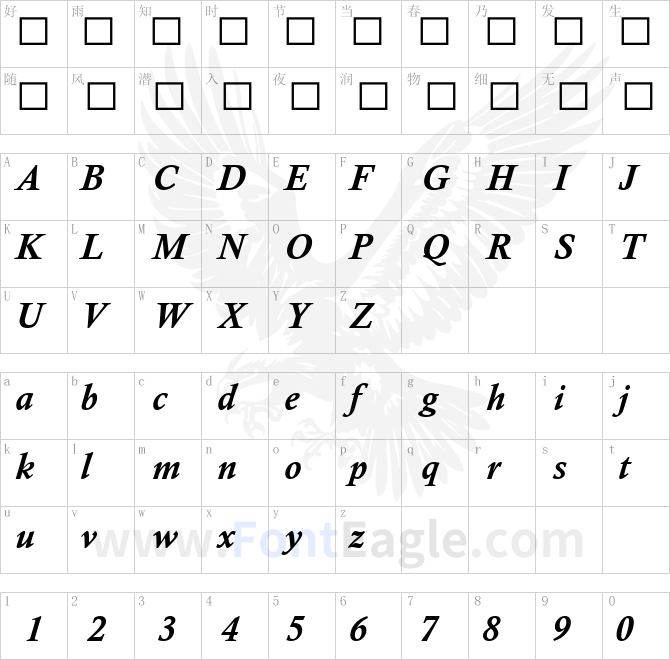
Calisto MT Gras Italique.ttf Base Font Information
- Font name:Calisto MT
- Font Subfamily:Gras Italique
- Font Subfamily ID:Monotype – Calisto MT Bold Italic
- Font Full Name:Calisto MT Gras Italique
- Font Version:Version 1.62
- Postscript:CalistoMT-BoldItalic